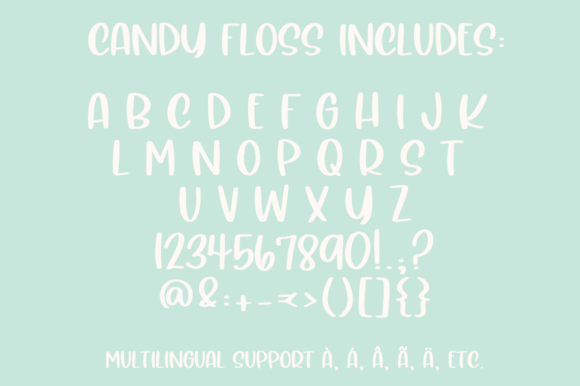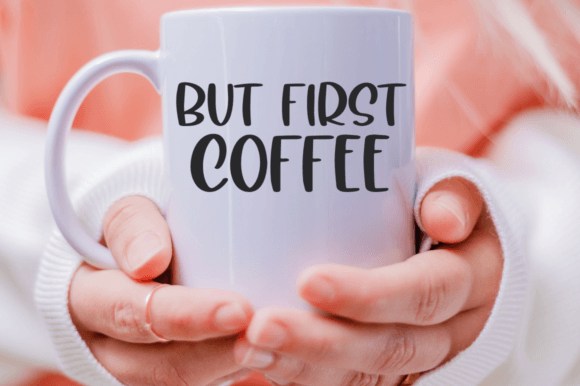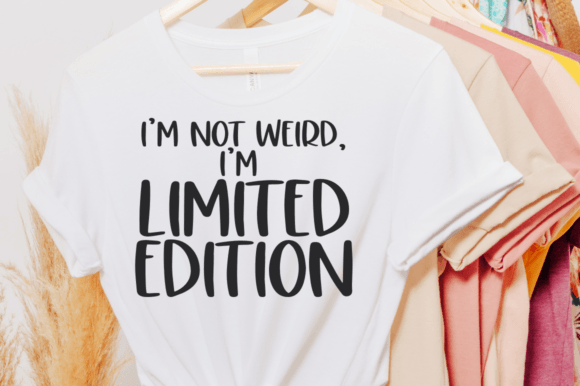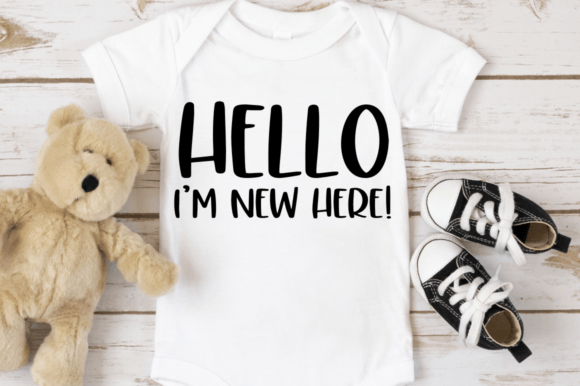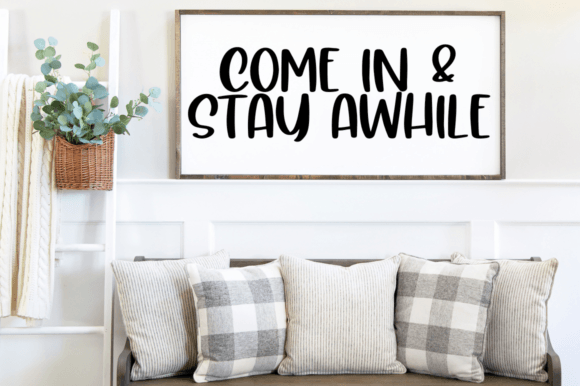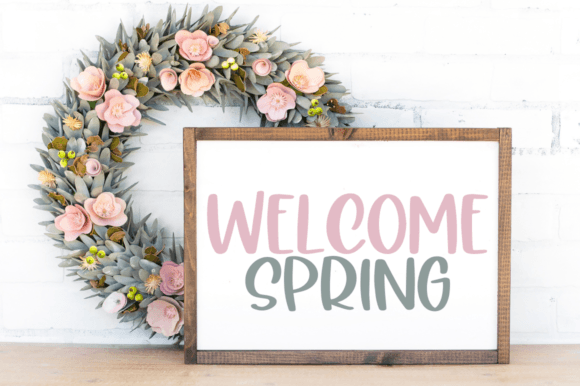
Candy Floss Font: The Sweetest Addition to Your Design Projects
Are you looking for a font that’s as sweet as it is versatile? Look no further than the Candy Floss font! This adorable handwritten font is perfect for a wide range of creative projects, from fun logos and greeting cards to t-shirt designs, stickers, and social media graphics. In this article, we’ll take a closer look at the Candy Floss font and explore its many uses.
What is the Candy Floss Font?
The Candy Floss font is a playful, handwritten font that’s designed to evoke the feeling of childhood nostalgia and fun. Its soft, curly lines and whimsical feel make it perfect for projects that require a touch of sweetness and playfulness. Whether you’re a designer, crafter, or social media enthusiast, this font is sure to bring a smile to your face and inspire your creativity.
Uses for the Candy Floss Font
So, what can you use the Candy Floss font for? The possibilities are endless! Here are just a few ideas to get you started:
- Fun Logos: Create a logo that’s as sweet as your brand with the Candy Floss font. Perfect for bakeries, candy stores, and other businesses that want to evoke a sense of fun and playfulness.
- Greeting Cards: Add a personal touch to your greeting cards with the Candy Floss font. Whether you’re creating birthday cards, thank-you cards, or holiday cards, this font is sure to make your recipients smile.
- T-Shirt Designs: Create custom t-shirt designs that are perfect for kids and adults alike. The Candy Floss font is a great choice for designing fun and playful tees that are sure to be a hit.
- Stickers: Design stickers that are as sweet as they are fun with the Candy Floss font. Perfect for laptops, water bottles, and other items that need a touch of personality.
- Social Media Graphics: Add a touch of whimsy to your social media graphics with the Candy Floss font. Perfect for creating engaging posts, stories, and ads that are sure to grab attention.
- Crafts: Use the Candy Floss font to add a personal touch to your craft projects. Whether you’re creating handmade cards, gift tags, or other paper crafts, this font is sure to add a touch of sweetness.
Why Choose the Candy Floss Font?
So, why choose the Candy Floss font for your design projects? Here are just a few reasons why:
- Unique and Playful: The Candy Floss font is a one-of-a-kind font that’s sure to stand out from the crowd. Its playful, whimsical feel makes it perfect for projects that require a touch of personality.
- Easy to Read: Despite its playful feel, the Candy Floss font is easy to read and understand. This makes it perfect for projects that require a clear and concise message.
- Versatile: The Candy Floss font is versatile and can be used for a wide range of projects. Whether you’re creating a logo, greeting card, or social media graphic, this font is sure to fit the bill.
Tips for Using the Candy Floss Font
Here are a few tips for using the Candy Floss font in your design projects:
- Pair with Other Fonts: The Candy Floss font pairs well with other fonts, such as sans-serif fonts and script fonts. Experiment with different pairings to find the perfect combination for your project.
- Use Bright Colors: The Candy Floss font looks great with bright, bold colors. Experiment with different color combinations to find the perfect fit for your project.
- Keep it Simple: While the Candy Floss font is playful and whimsical, it’s best to keep your design simple and clean. Avoid cluttering your design with too many elements or fonts.
| Font Name | Candy Floss Font |
The Candy Floss font is a sweet and versatile addition to any design project. With its playful, whimsical feel and easy-to-read design, it’s perfect for a wide range of creative projects. Whether you’re a designer, crafter, or social media enthusiast, this font is sure to bring a smile to your face and inspire your creativity. So why wait? Add the Candy Floss font to your design projects today and see the sweet results for yourself!